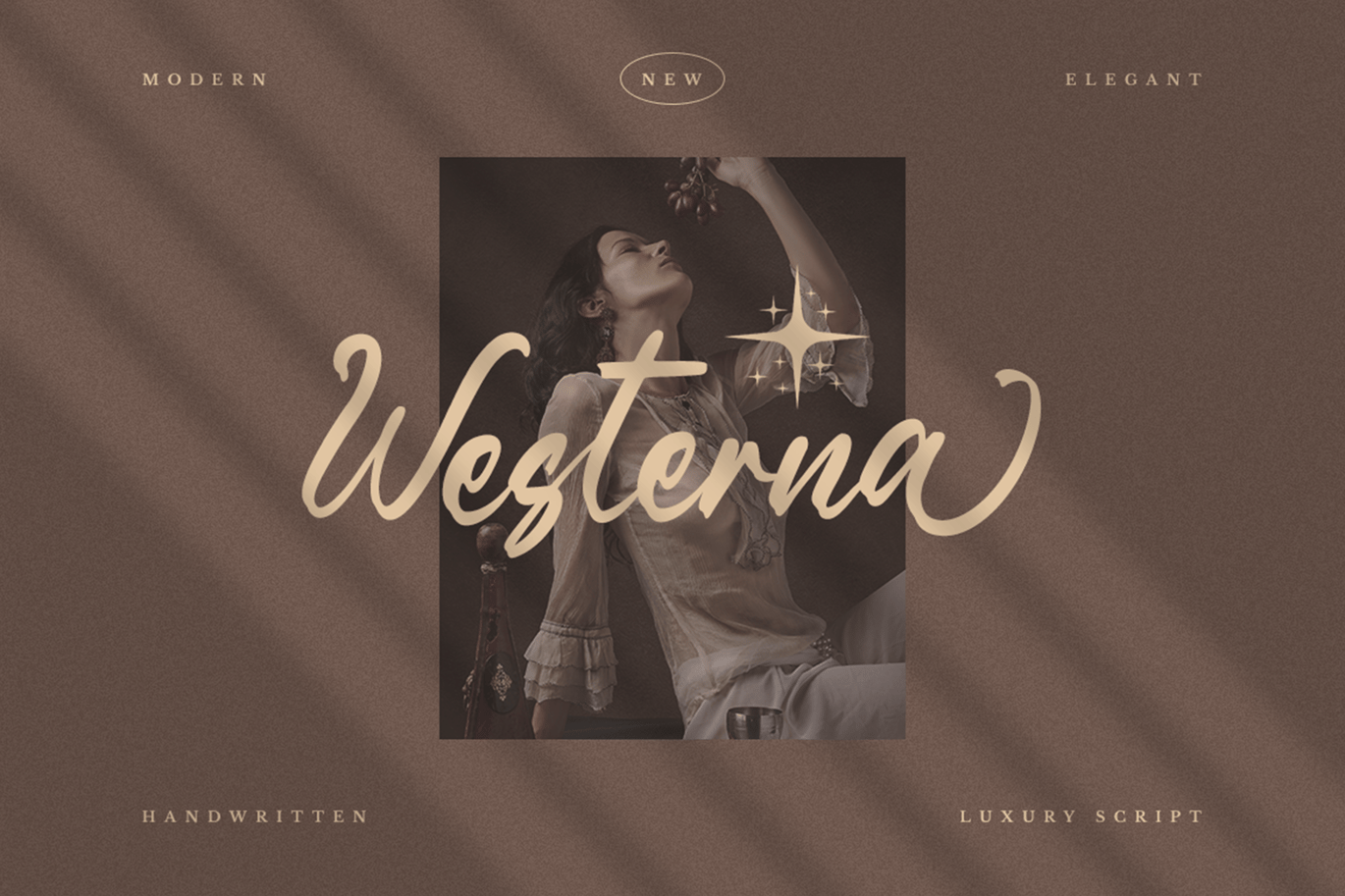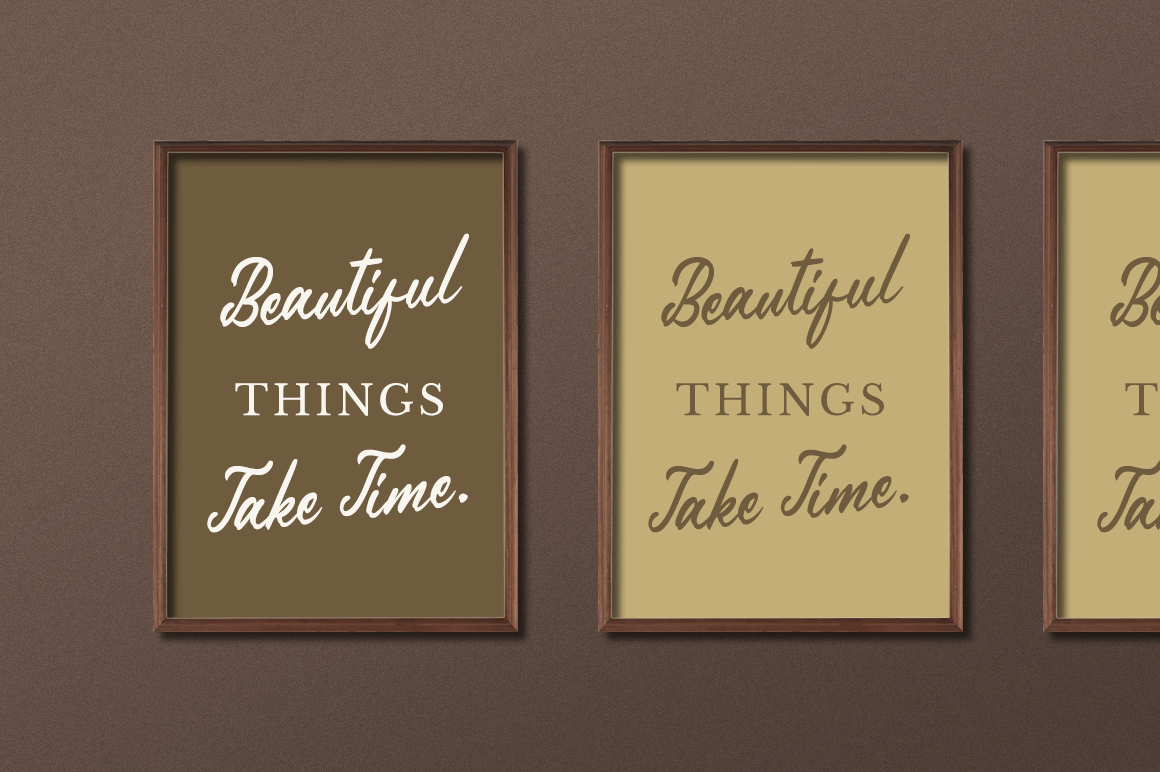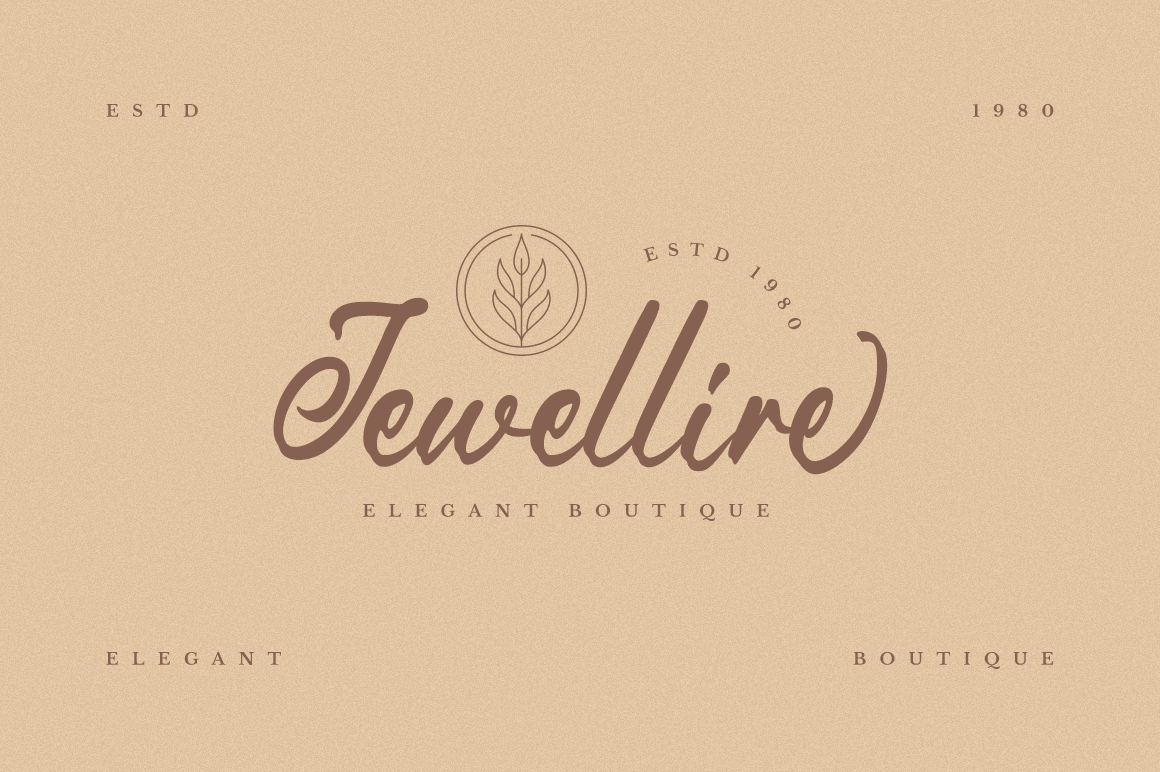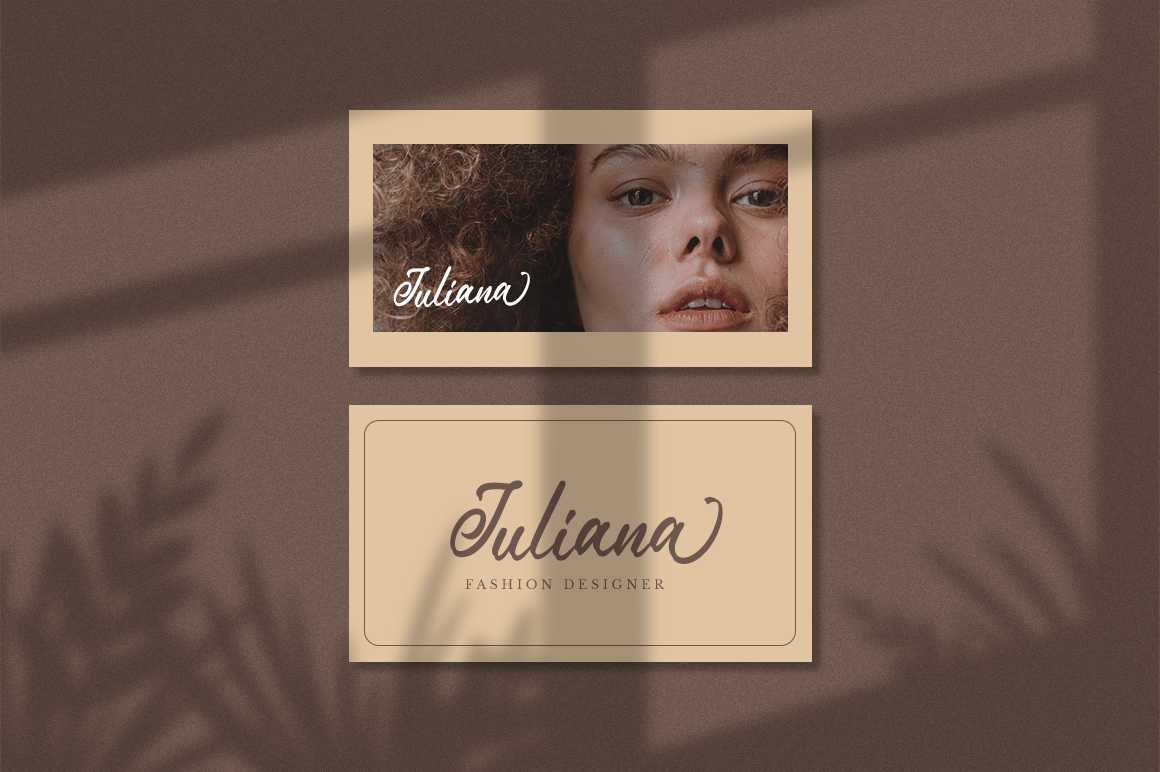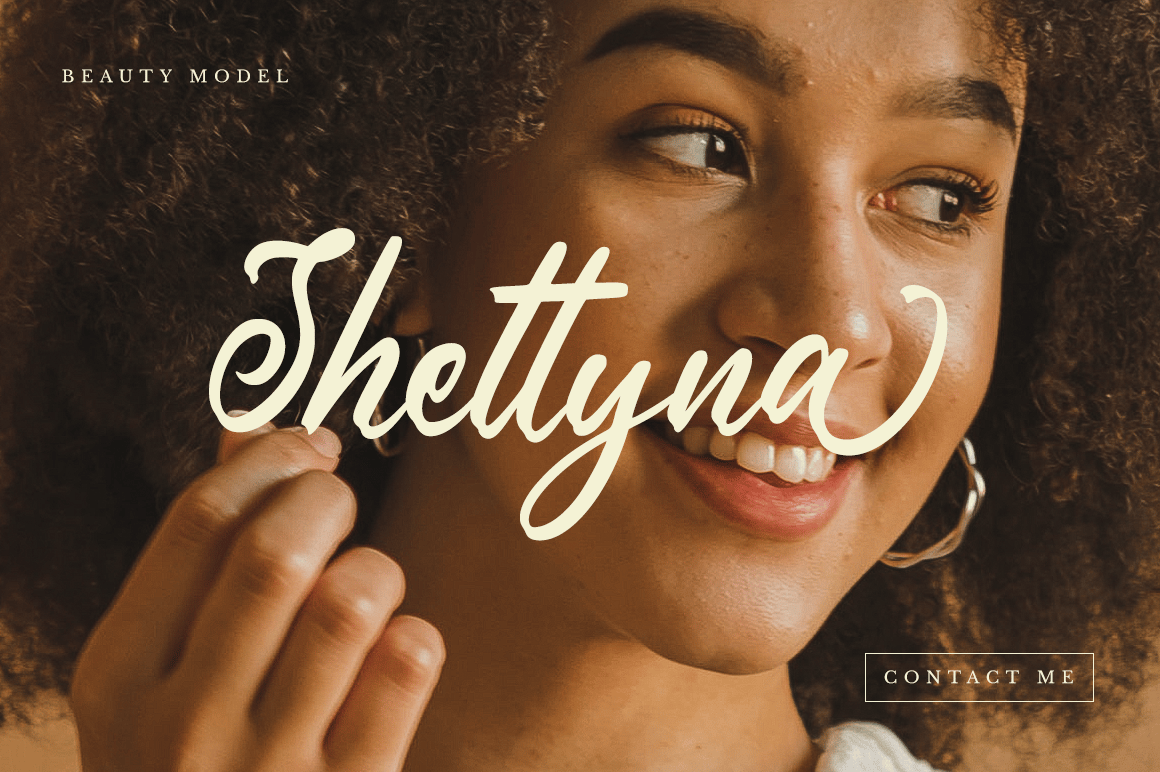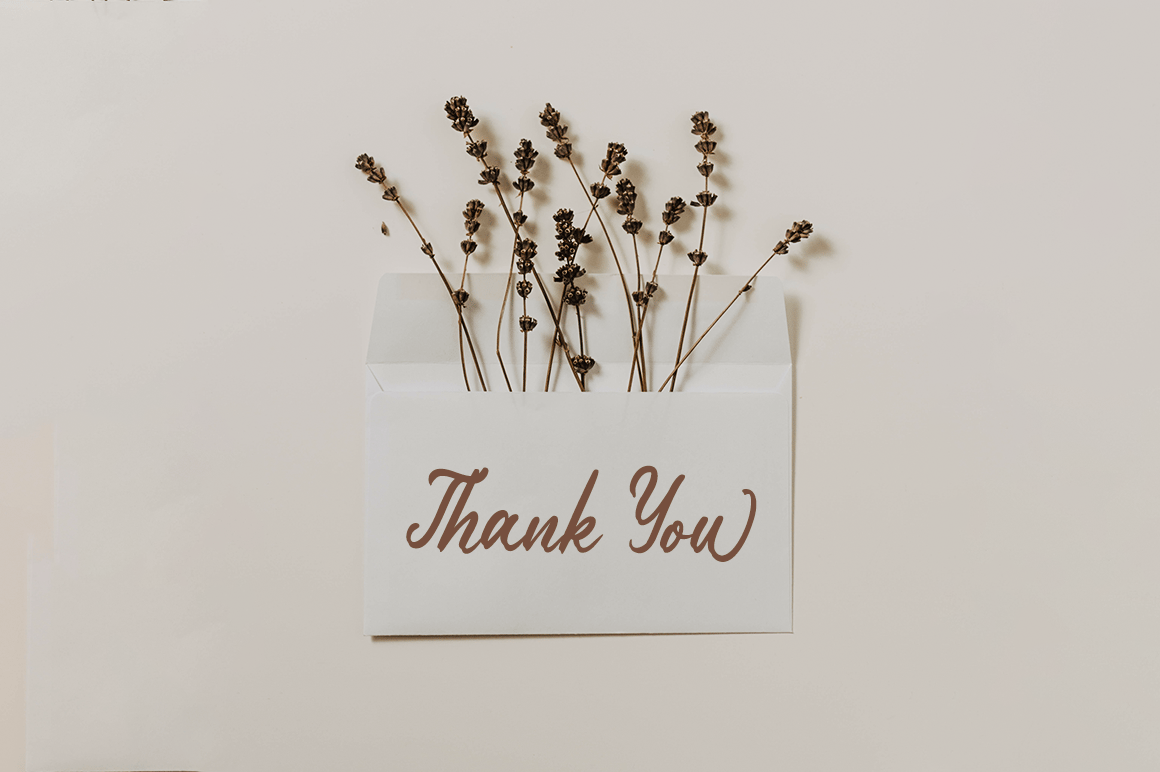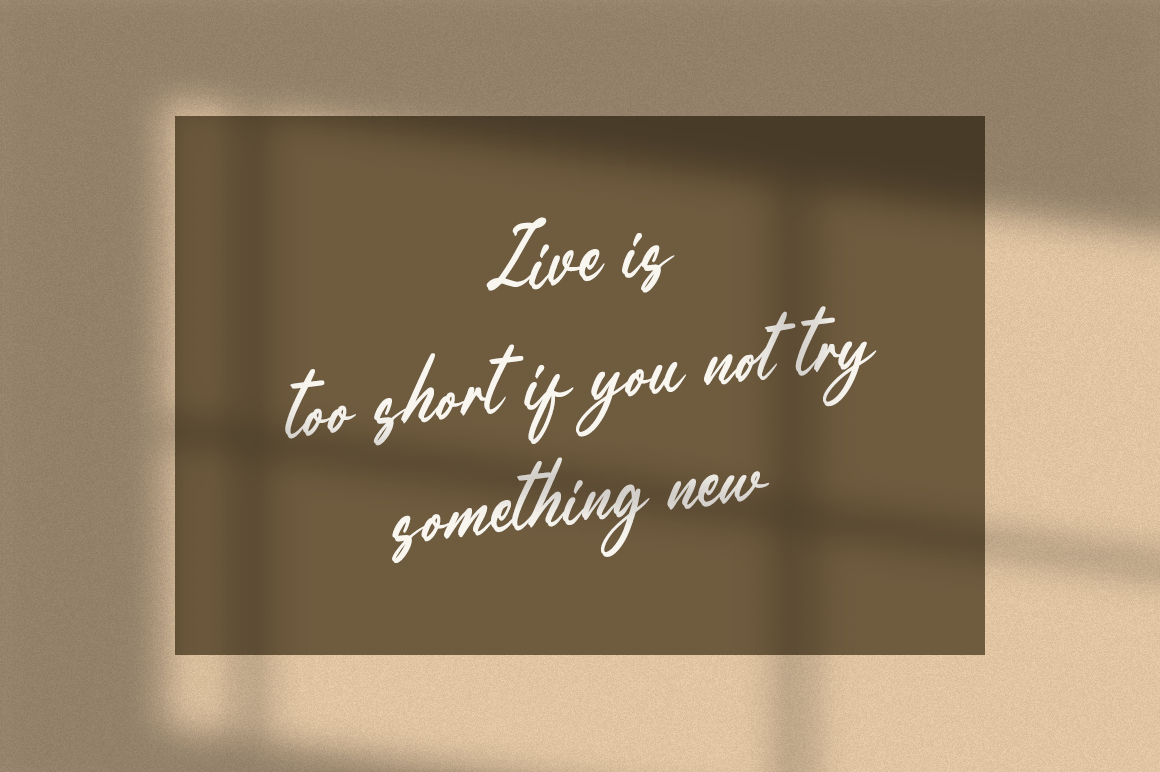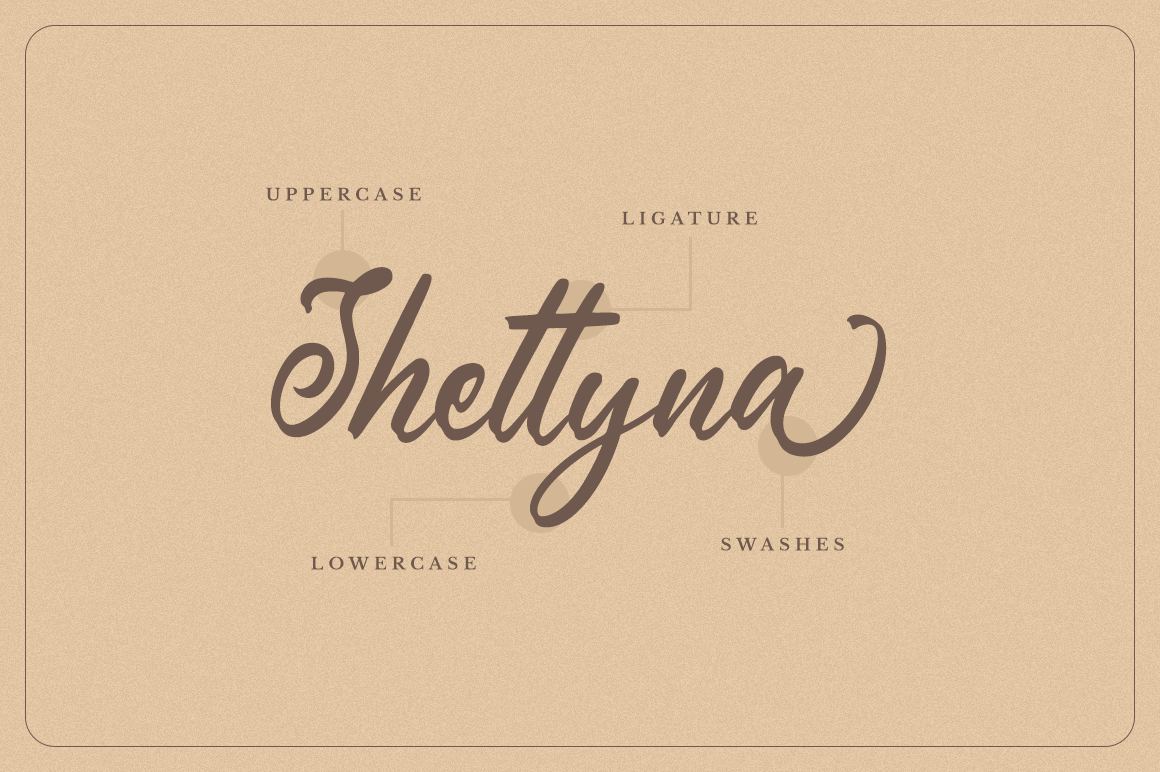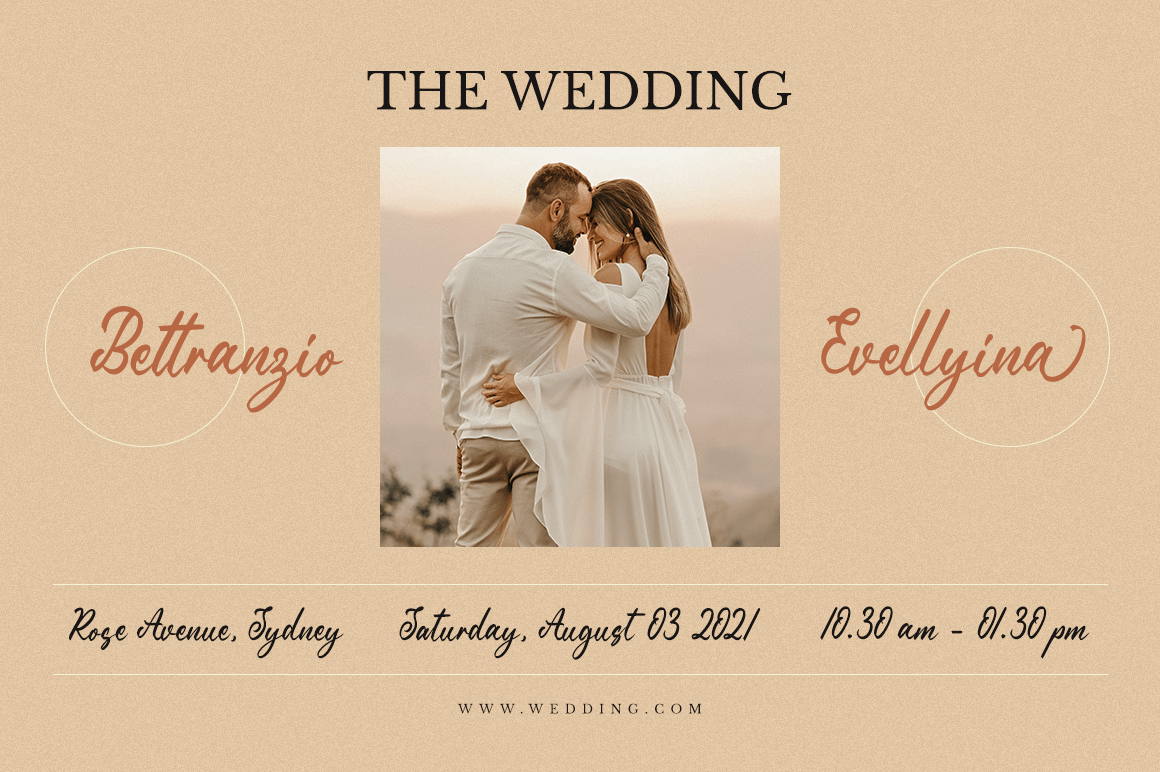
Westerna – Luxury Font
Westerna is a cute and luxury font with an incredibly friendly feel. This luxury and dynamic display is a simply wonderful addition to any font library and will look great in a wide range of arts & crafts projects.